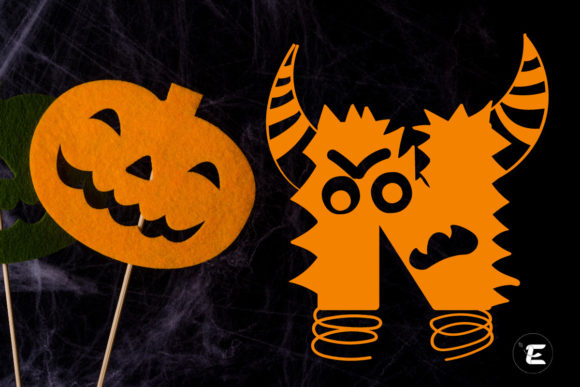
Unleash your creativity with Monsters Font, the ultimate decorative font that's sure to add a touch of whimsy and fun to all your projects. Its playful and captivating design makes it the perfect choice for any occasion, adding a unique charm to your words. Whether you're a crafter, digital designer, or simply looking to add some pizzazz to your presentations, Monsters Font is your go-to font for endless creative possibilities.
Immerse yourself in the world of Monsters Font and discover a font that's not just visually stunning but also incredibly versatile. Use it to create eye-catching banners for your Cricut projects, transforming ordinary designs into extraordinary masterpieces. Its bold and vibrant characters are sure to make your words pop, captivating the attention of your audience and leaving a lasting impression.
With Monsters Font, the possibilities are boundless. Let your imagination run wild as you craft unique invitations, greeting cards, and party decorations that are sure to impress. Its playful nature makes it perfect for kids' parties, adding an extra layer of excitement and magic to their special day. Unleash your inner child and embrace the joy of creativity with Monsters Font.
Don't settle for ordinary fonts that blend into the background. Choose Monsters Font and let your words shine. Its distinct and memorable design will add a touch of personality to your projects, making them stand out from the crowd. Whether you're creating social media posts, website designs, or marketing materials, Monsters Font is the key to unlocking your creative potential and leaving a lasting impact on your audience.
Join the growing community of creative enthusiasts who have embraced Monsters Font as their font of choice. Experience the joy of using a font that's not just a tool but a work of art in itself. Monsters Font is your passport to a world of creativity, where your imagination knows no bounds. Download it today and let your projects come alive with its playful charm and captivating design.